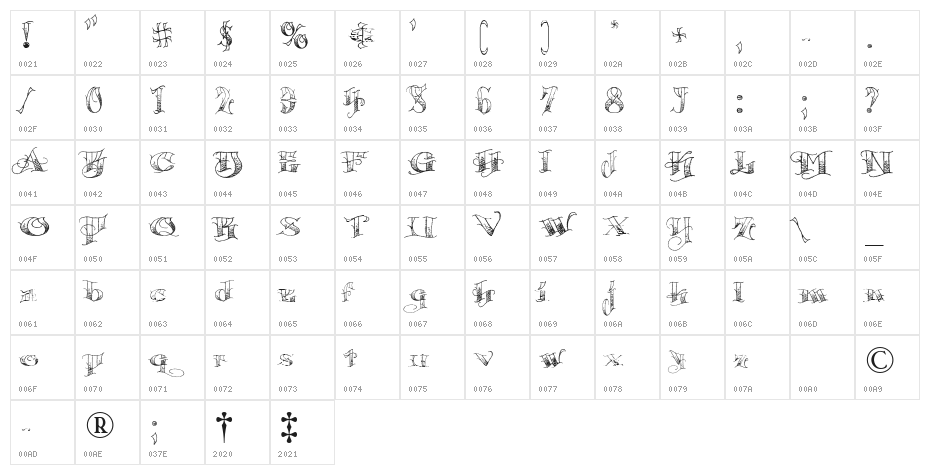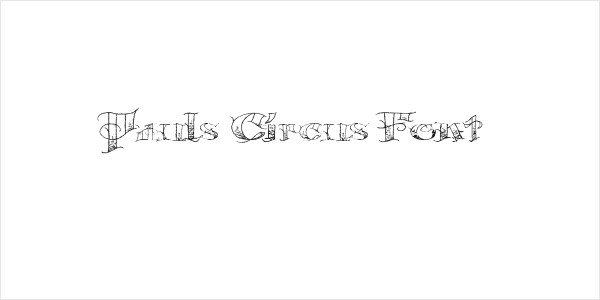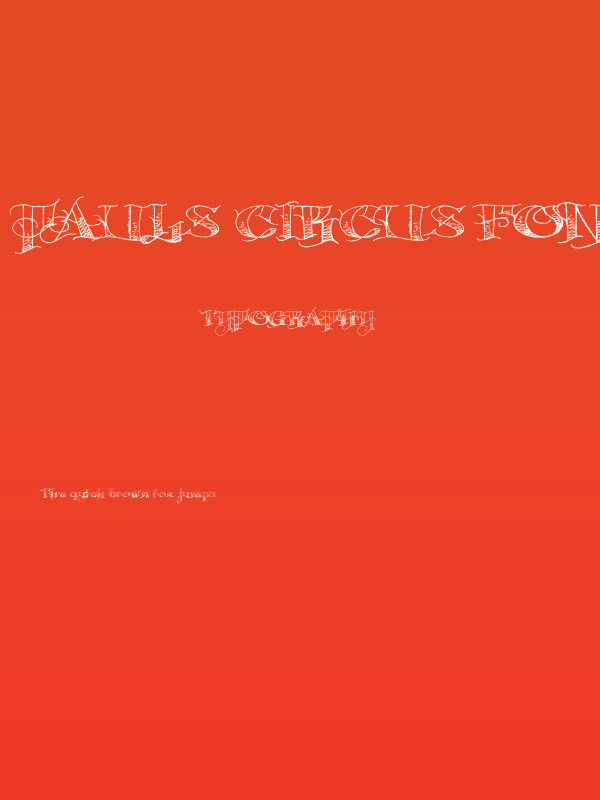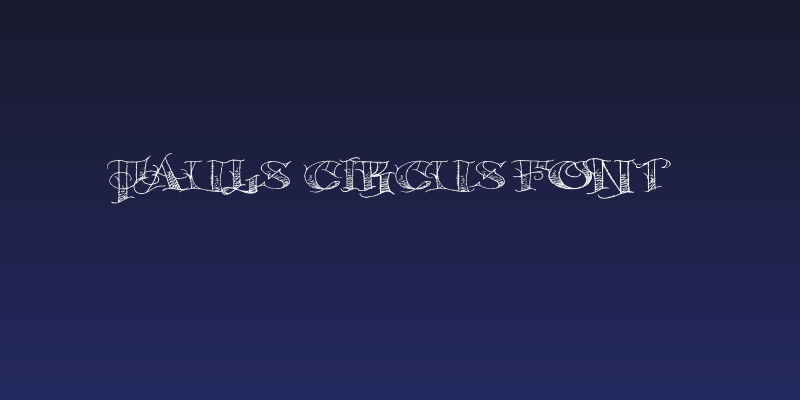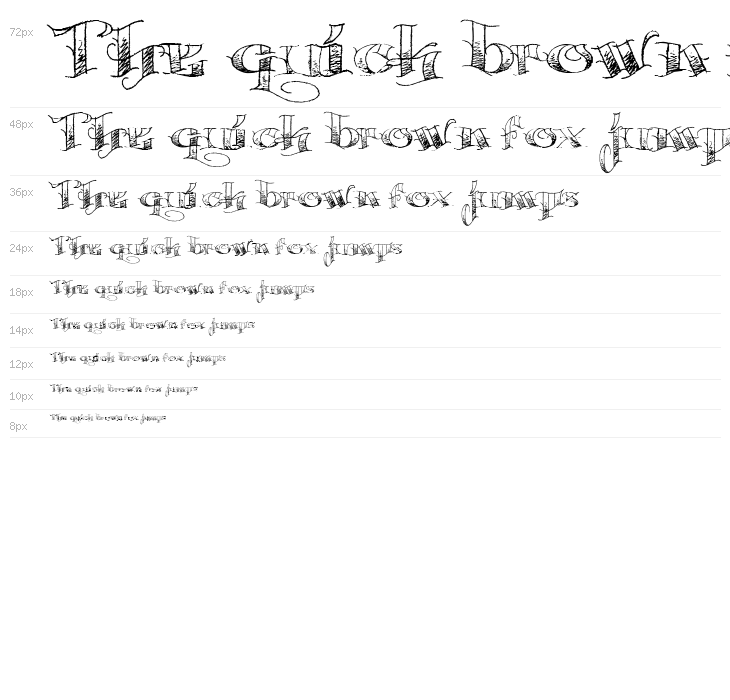
Pauls Circus Font Font
Pauls Circus Font Description
This font exudes a whimsical and playful vibe, reminiscent of vintage circus posters. The characters are highly decorative, featuring intricate line work and flourishes that give each letter a unique, hand-drawn appearance. The uppercase letters are bold and dramatic, with exaggerated serifs and loops, while the lowercase letters maintain a consistent style with slightly less ornamentation. Numbers and special characters follow the same ornate design, making them stand out. The overall aesthetic is both nostalgic and eye-catching, perfect for capturing attention.
| Proposed Projects | Ideal for circus-themed events, playful branding, poster designs, and any project requiring a touch of nostalgia and flair. |